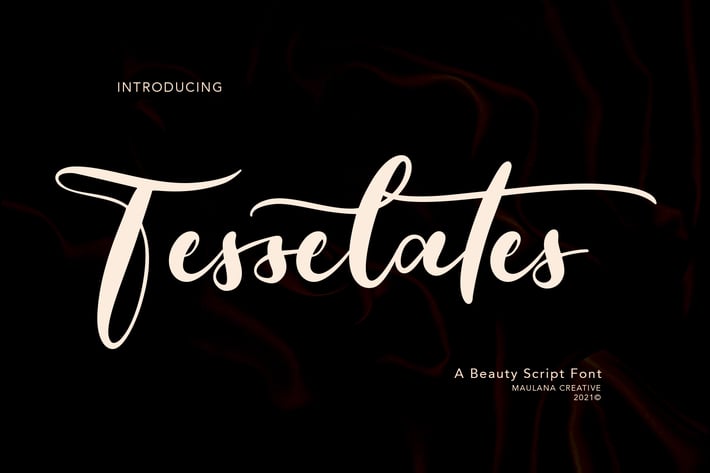
Tesselates Beauty Script Font
Tesselates is a fancy script font, with contrast bold stroke, slanted and fun character. It has Opentype features ligatures of character and alternate lowercases, To give you an extra creative work. Tesselates script font support multilingual more than 100+ language. This font is good for logo design, Social media, Movie Titles, Books Titles, a short text even a long text letter and good for your secondary text font with sans or serif. Make a stunning work with Tesselates font.